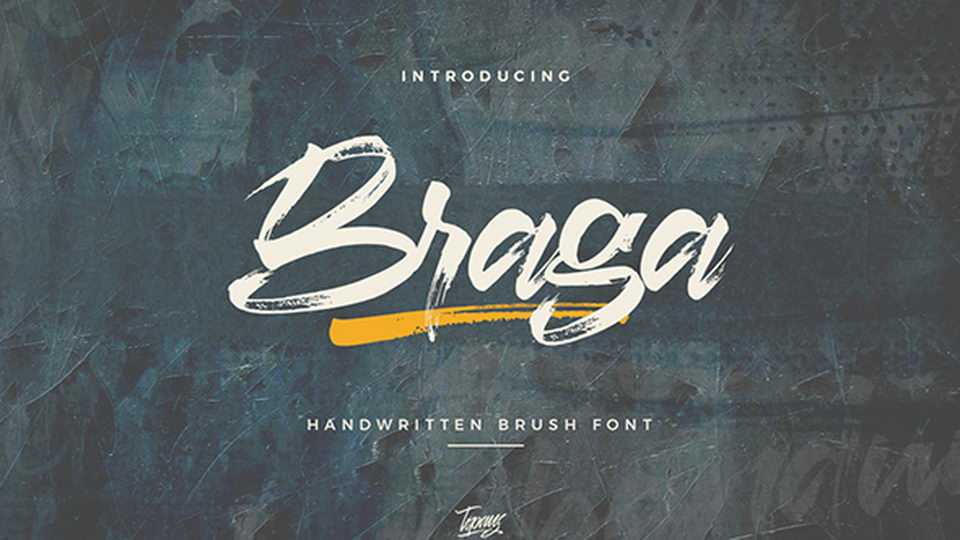
Download Bragafont, a rough brush script with a clear style and dramatic movement. Braga font is great for your next creative project such as logos, printed quotes, apparel, packaging, headers, etc.
Designer: Topan Sofyan